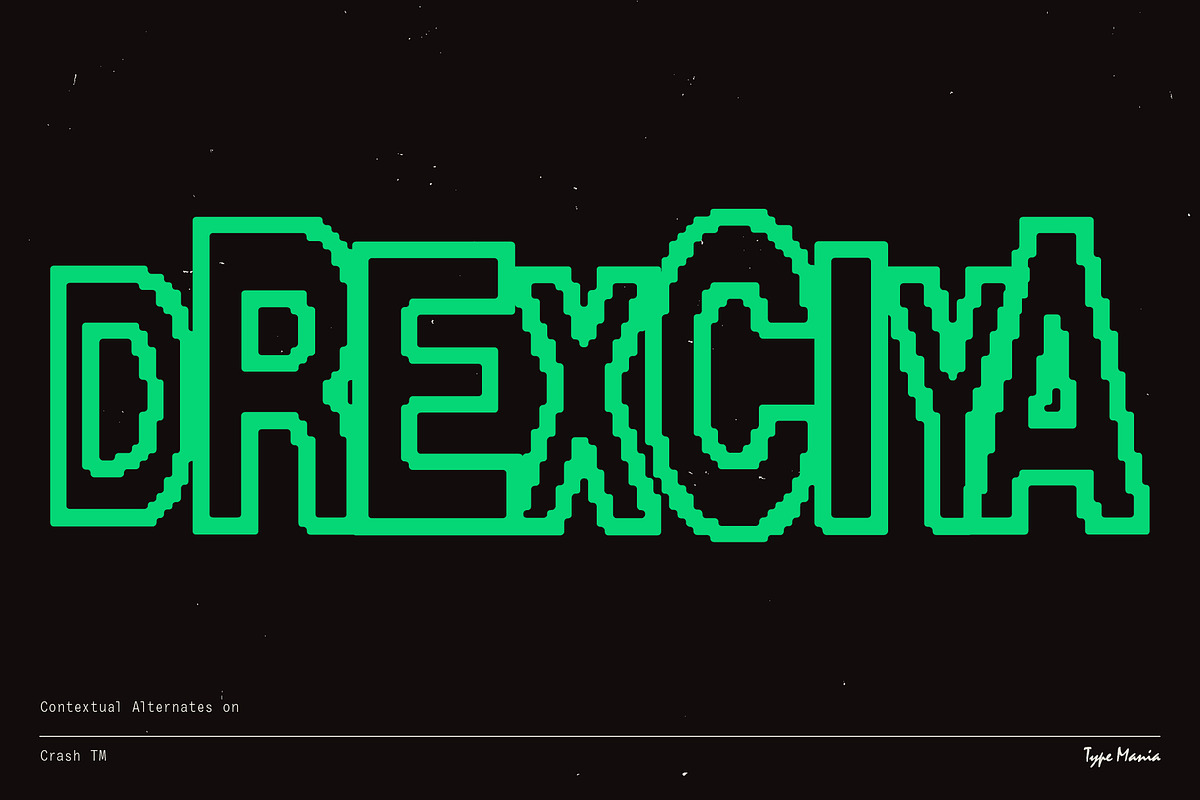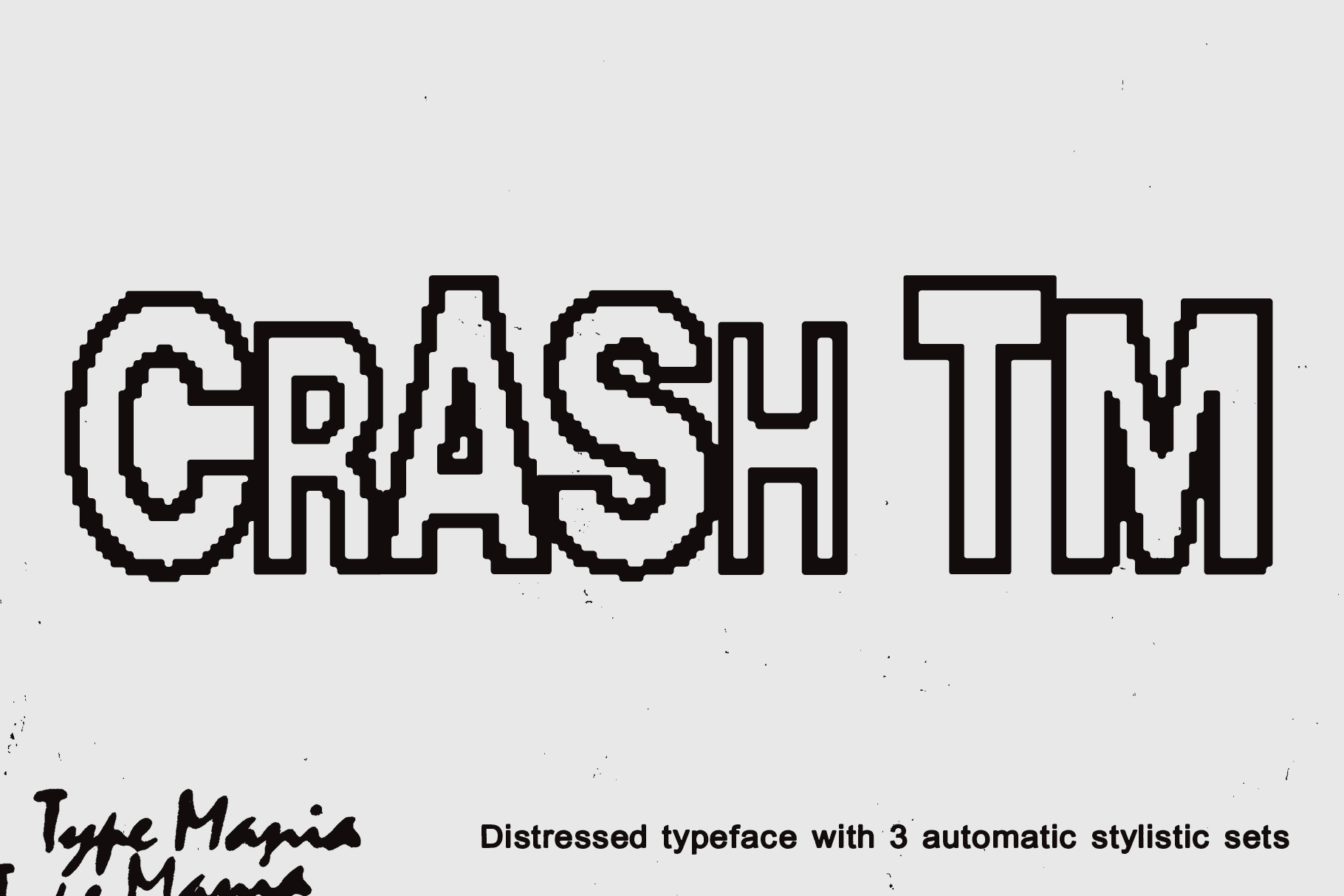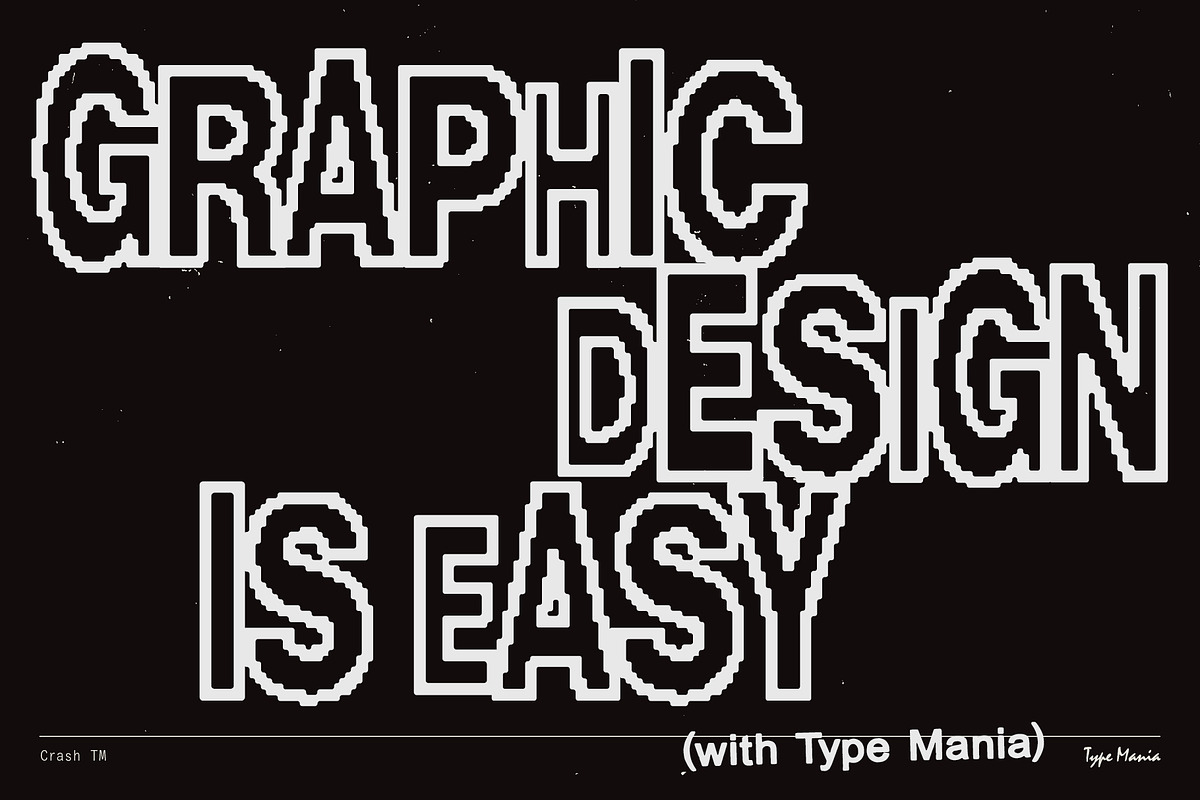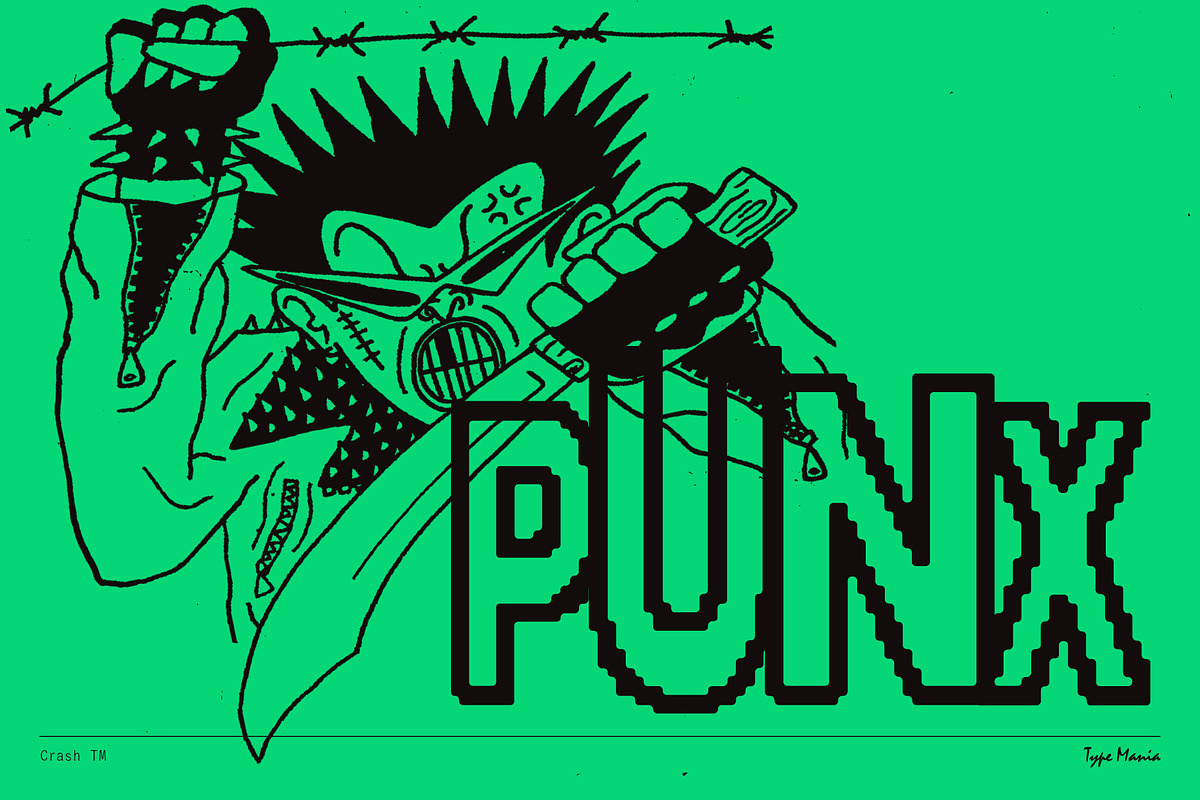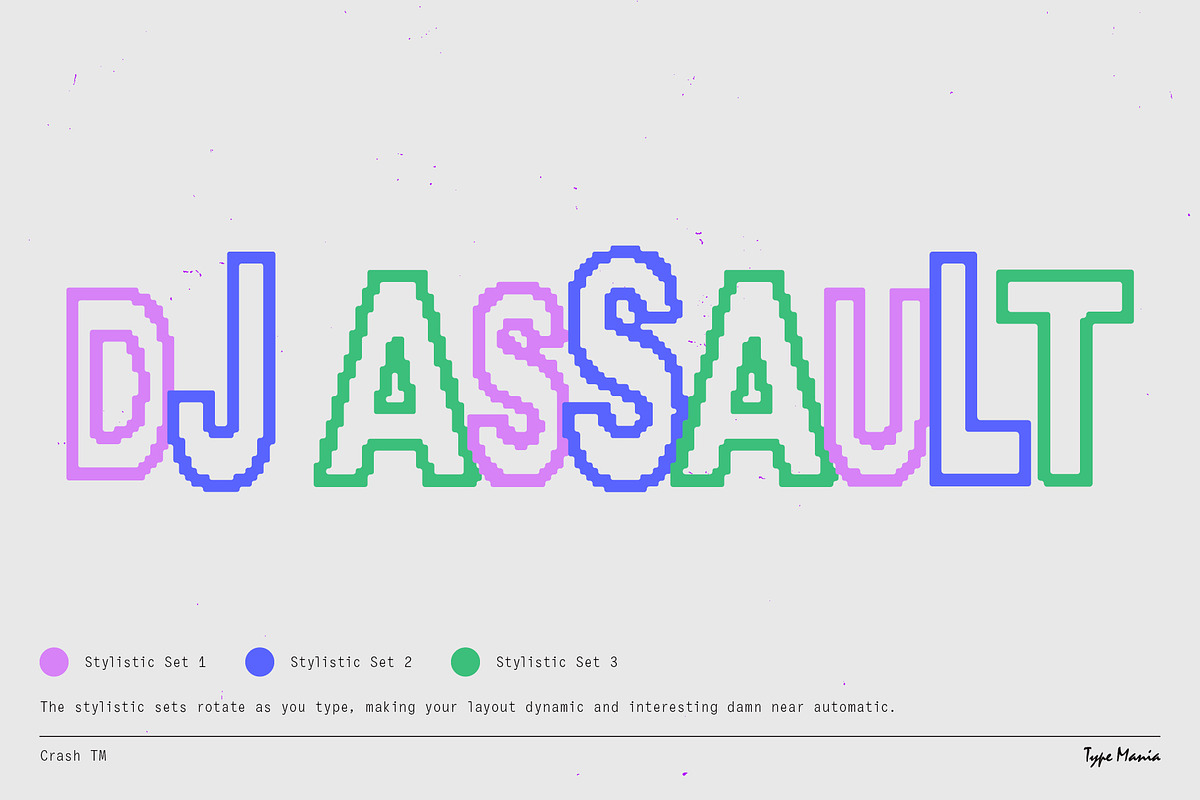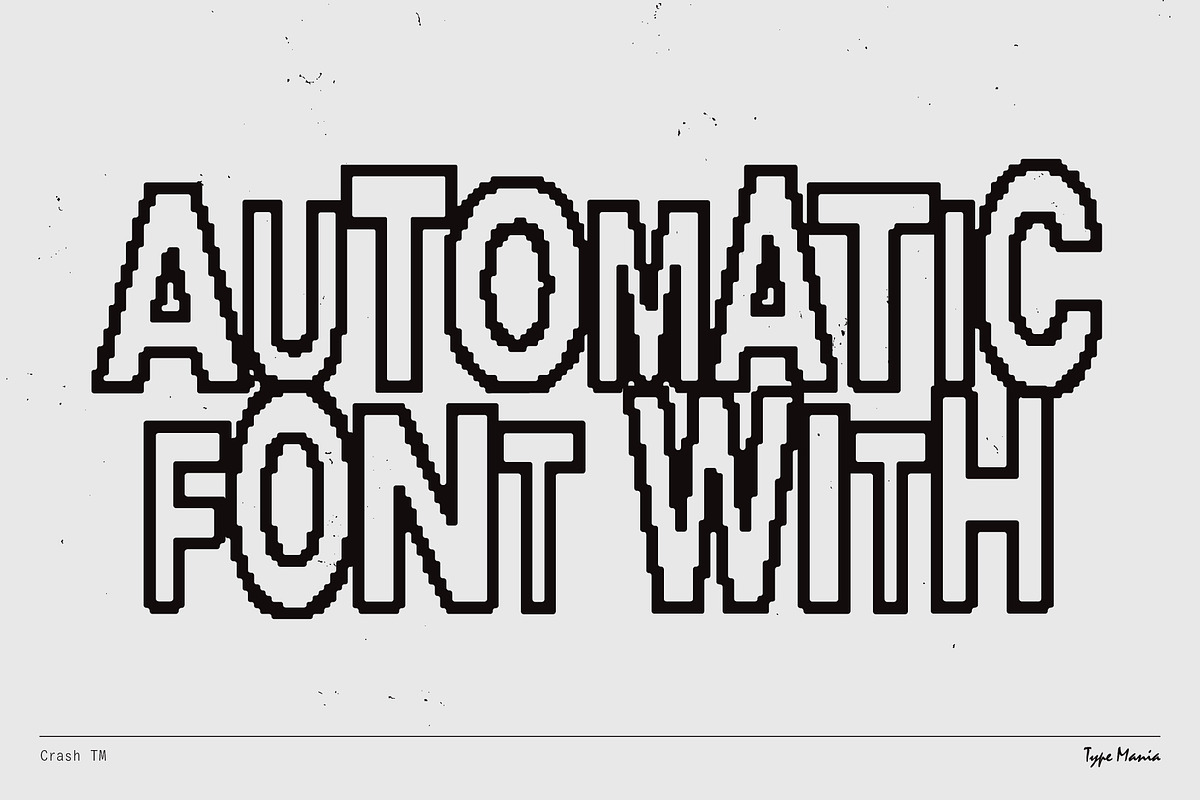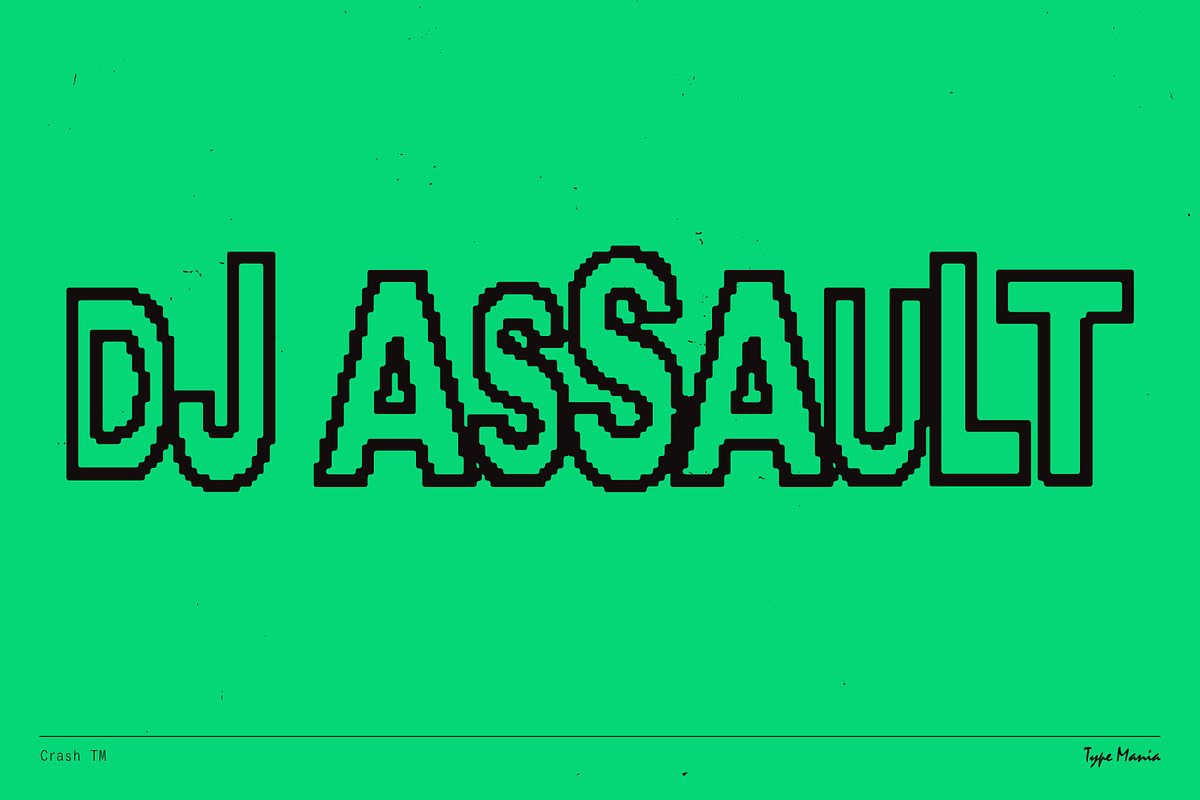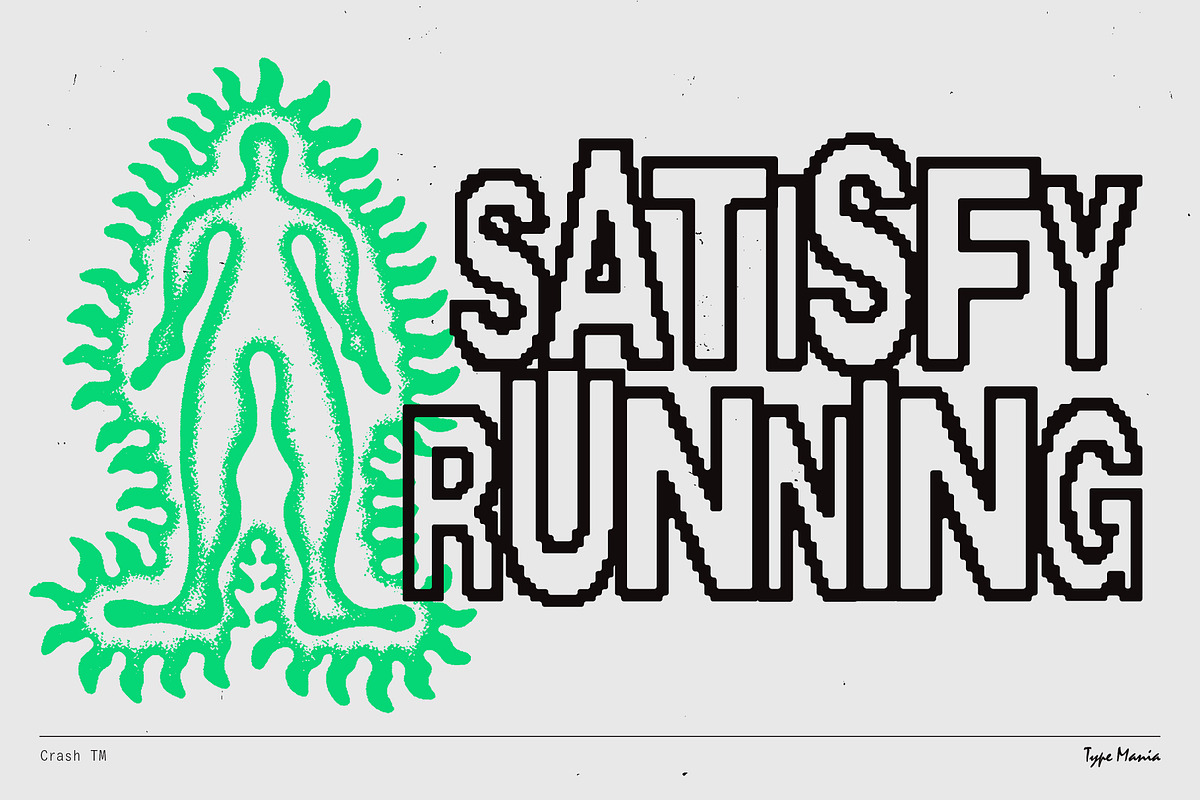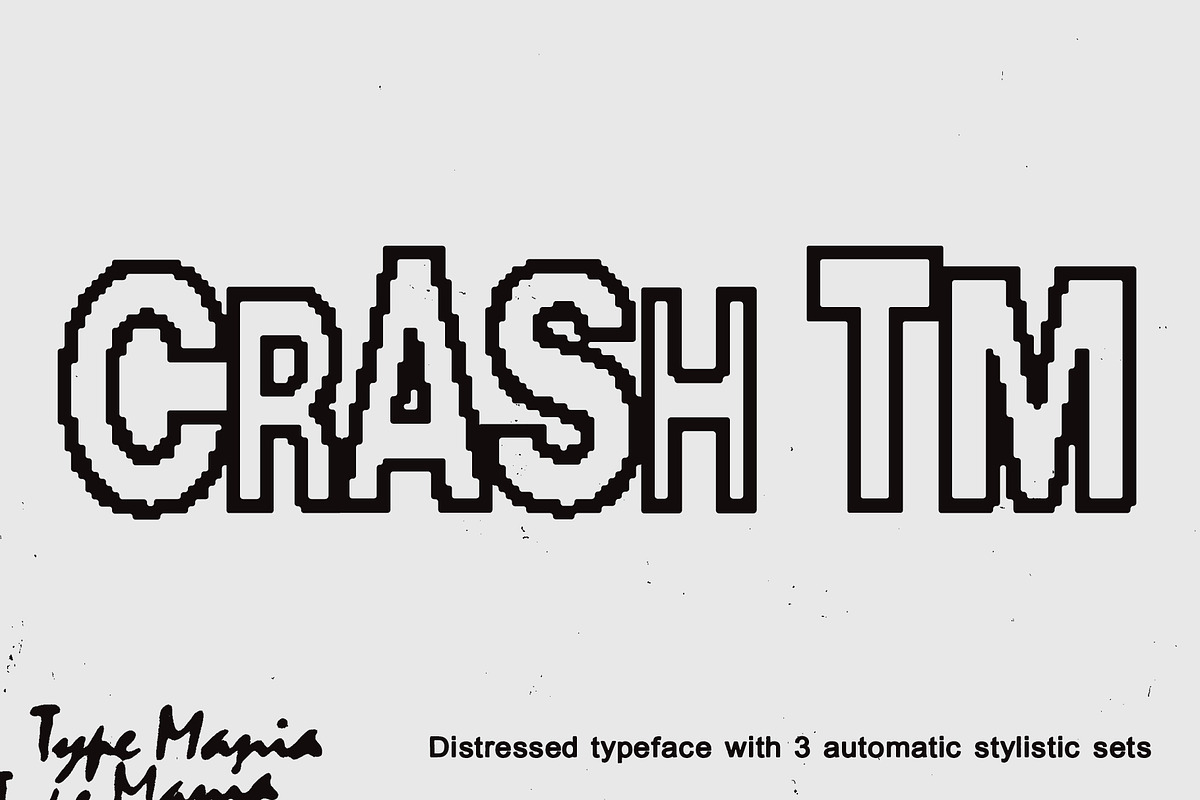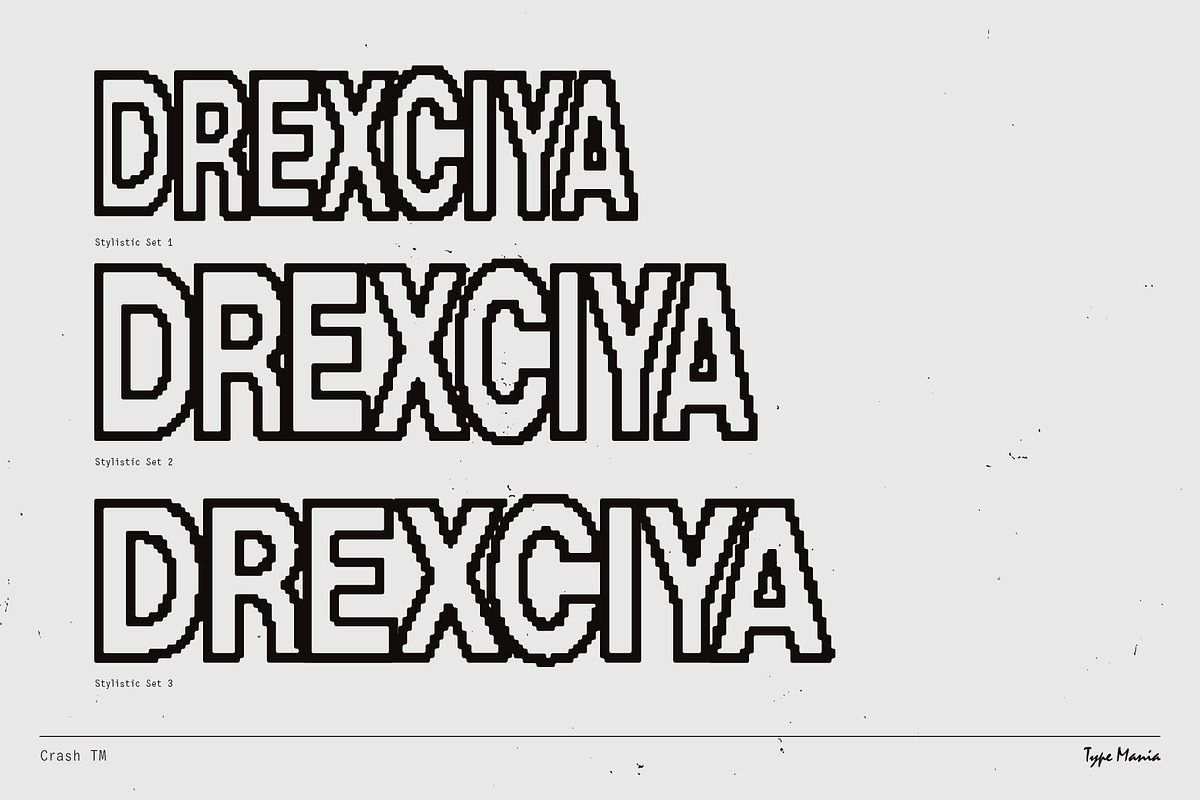
Crash TM – Automatic Trashed Font
Crash TM – Elevate your projects with a rugged typeface that automatically rotates through three distinct stylistic sets in a 1-2-3 pattern, offering a fresh, robust look with every change 😮💨
OpenType features
- 3 stylistic sets
- The font is programmed to automatically shift between the stylistic sets